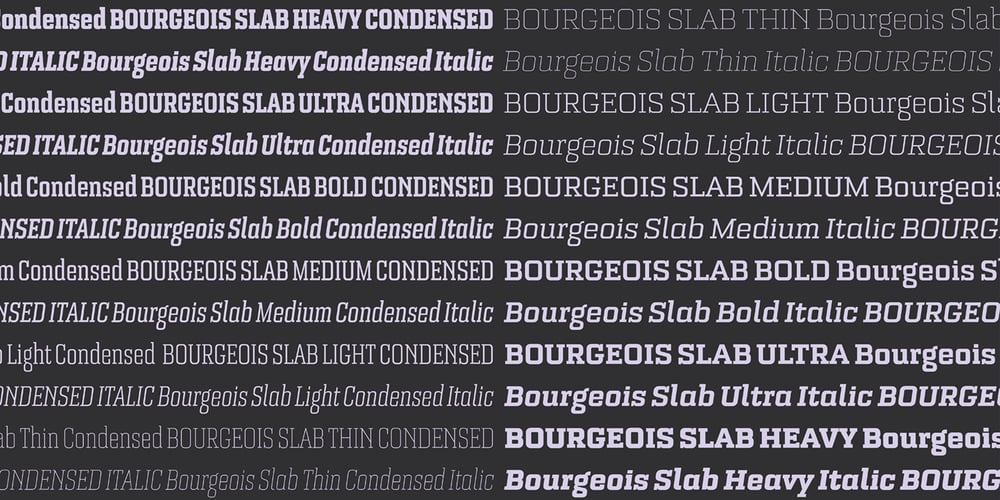
Bourgeois Slab
Bourgeois Slab font
Bourgeois Slab Font Family was designed by Jonathan Barnbrook, Julián Moncada and published by Barnbrook Fonts. Bourgeois Slab contains 24 styles and family package options. Bourgeois Slab is built upon the framework of Bourgeois, our popular geometric type family. As with the sans-serif Bourgeois, Slab’s letter forms are thoroughly contemporary in look and feel. Echoing mid-century modernism in style, Slab’s overall look is friendly and businesslike, more expansive and expressive than Bourgeois’s pared-down asceticism. The slab-serif’s development and vigorous uptake during the early-Victorian-era Industrial Revolution, means that we endow slab-serif faces with characteristics of sturdiness, durability and trustworthiness. At the same time, we appreciate the slab-serif’s raison d’etre: They’re made to grab your attention. Bourgeois Slab and Slab Condensed when combined, offer 24 styles suited for text of all kinds and sizes. Both are particularly good for for text-heavy projects and for designers seeking a robust, authoritative-but-genial voice for branding and logo work.